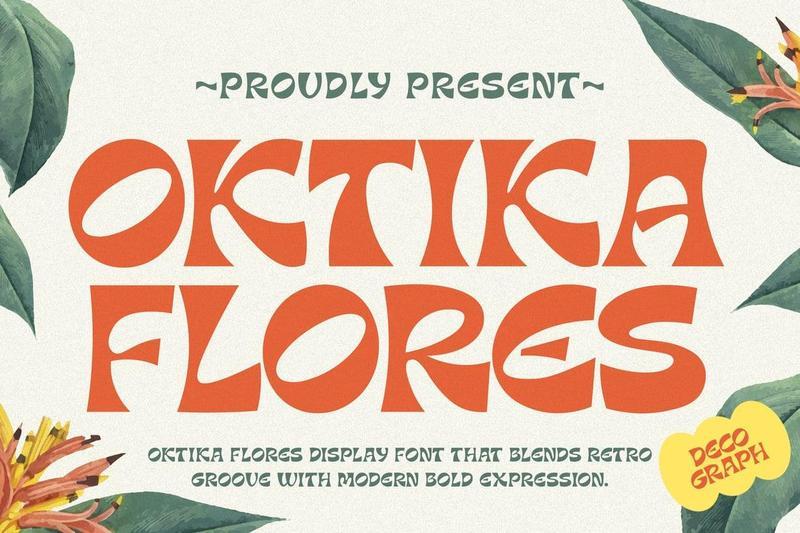
Oktika Flores – Retro Psychedelic Floral Font YXK28WY
Oktika Flores Retro Psychedelic Floral Font is a bold decorative typeface that blends tropical floral elements with retro psychedelic style. Its flowing curves, organic shapes, and groovy letterforms create a vibrant visual rhythm that feels expressive, playful, and full of character. The combination of vintage influence and psychedelic movement gives it a unique and eye-catching personality.
Designed for standout and artistic visuals, this font is perfect for creative and nature-inspired projects. Whether used for packaging, posters, branding, or social media graphics, Oktika Flores delivers a fresh tropical vibe with a bold psychedelic twist.
**Font Features:**
Uppercase Letters
Numbers And Punctuation
Multilingual Support
Organic Curved Forms
Psychedelic Letter Style